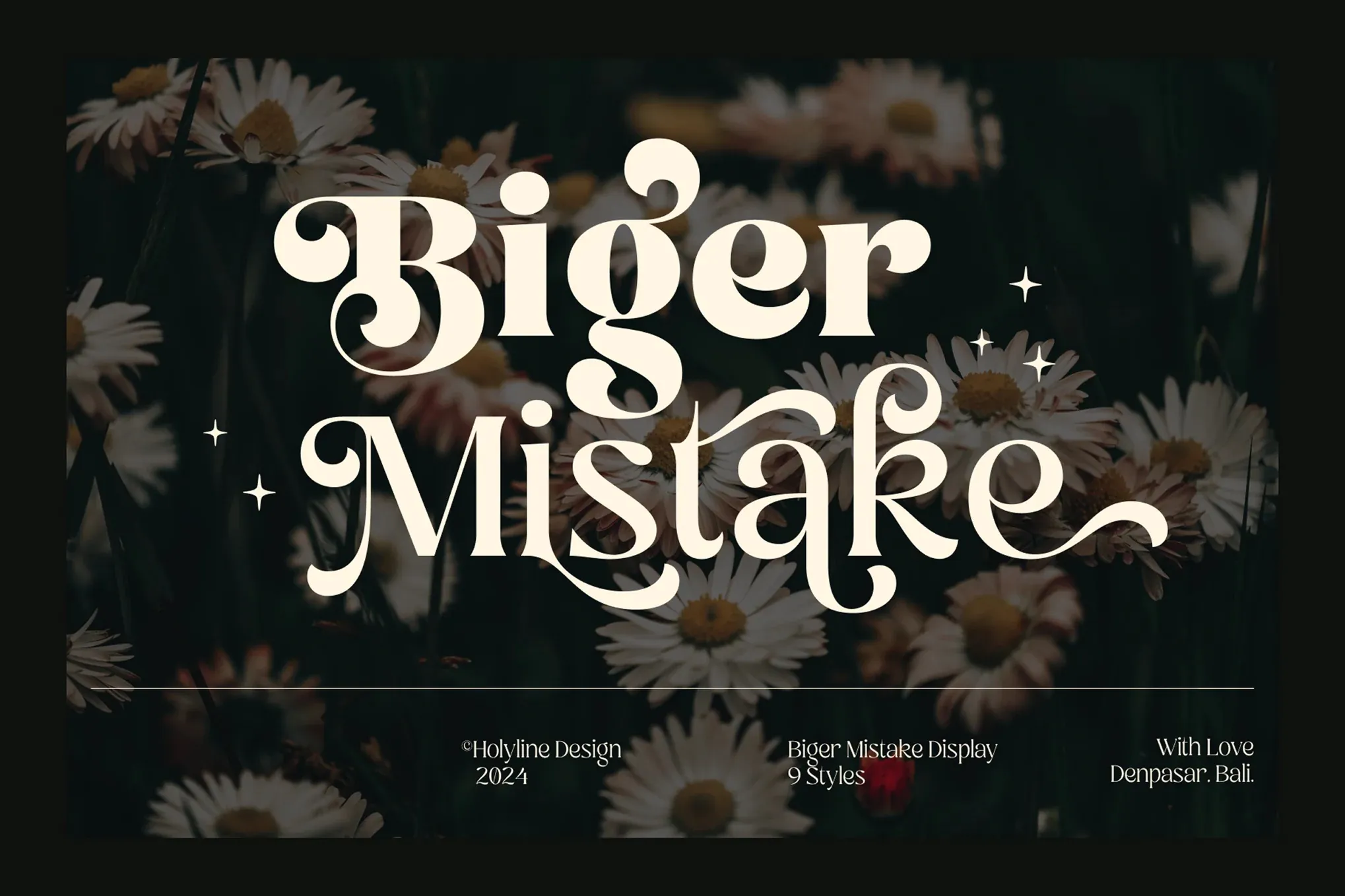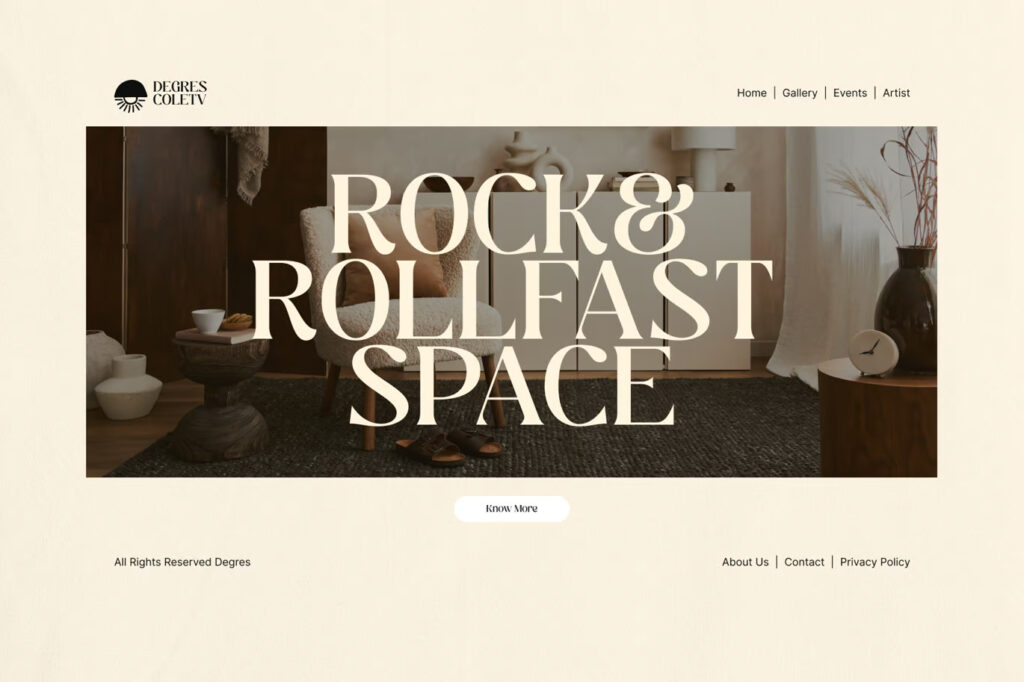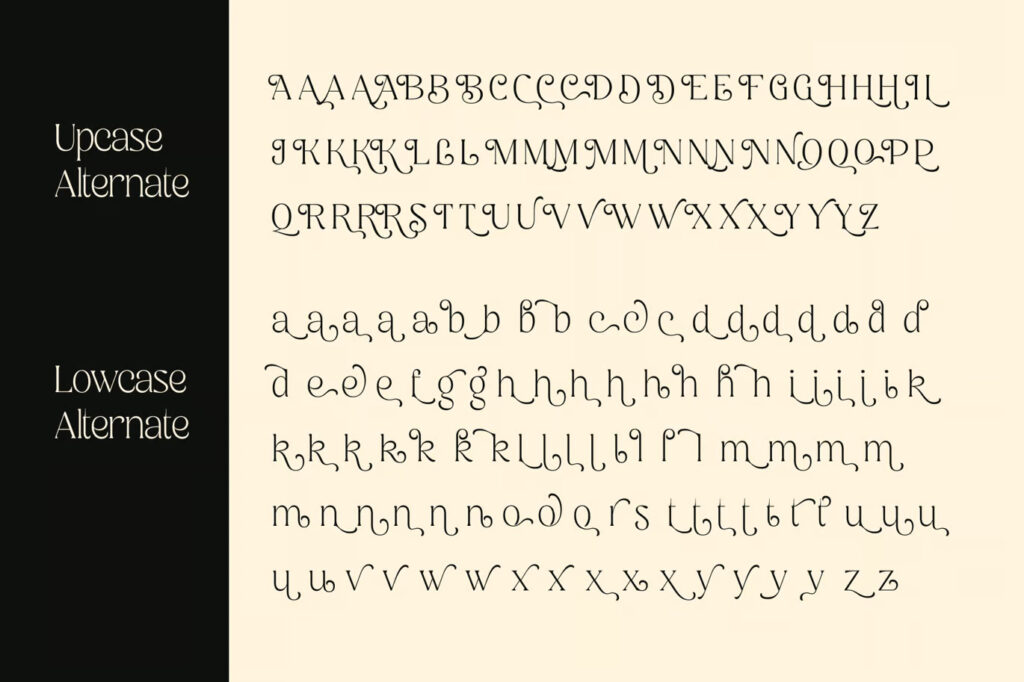
Biger Mistake is a bold and playful serif display font that seamlessly blends retro charm with modern sophistication. Inspired by iconic fashion typography and editorial layouts from the 1960s through the 1990s, this typeface evokes nostalgia while delivering a contemporary edge. Its carefully crafted letterforms combine a vintage flair with striking elegance, making it an excellent choice for designers who want to make a statement.
With 9 versatile weights, ranging from whisper-thin to powerful black, Biger Mistake adapts to a variety of design needs—from magazine covers and branding projects to eye-catching social media posts, packaging, and logos. The font is enriched with an array of stylistic alternates and ligatures, enabling endless creative possibilities and custom typography treatments. These alternates allow for smooth curves, ornamental flair, and unique letter combinations that elevate any composition.
Whether you’re channeling a nostalgic look or adding a touch of bold character to a modern layout, Biger Mistake offers the flexibility and personality to bring your vision to life.